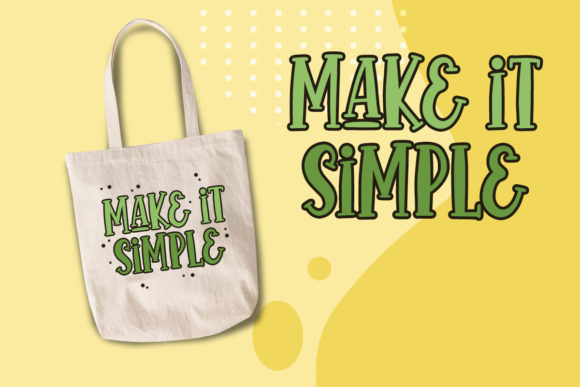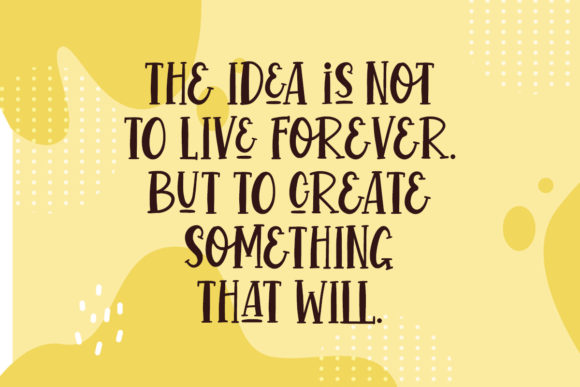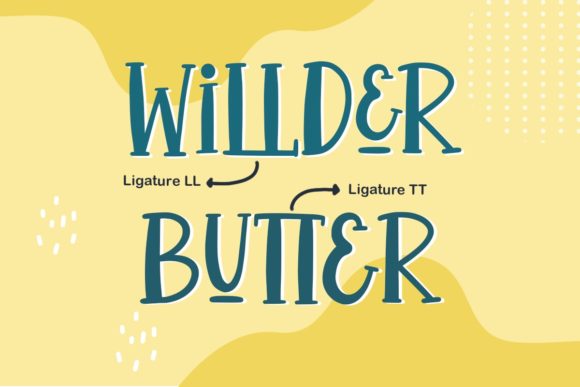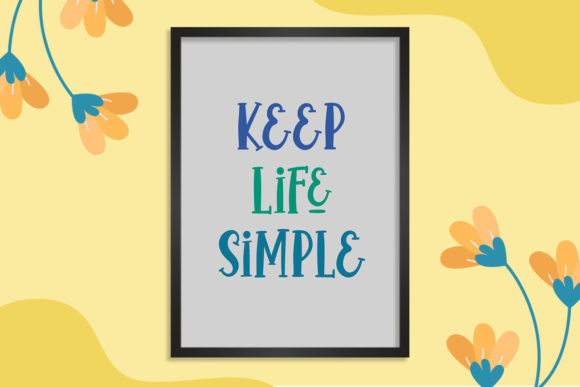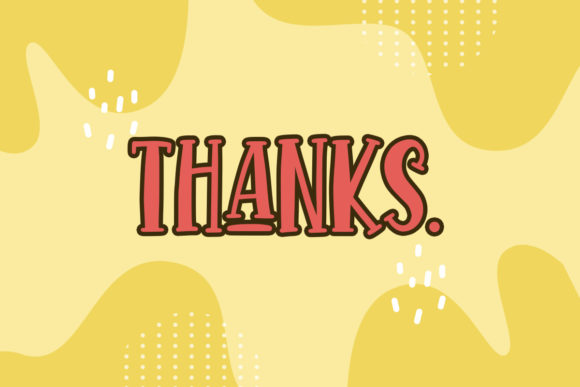
Morning Cullen Font
About Morning Cullen Font
Morning Cullen is a cute and casual handwritten font with an incredibly friendly feel. This font is the perfect fit for all of your logos, branding, social media, and crafty DIY projects.